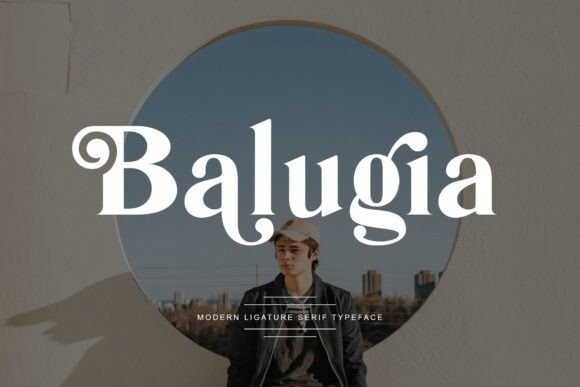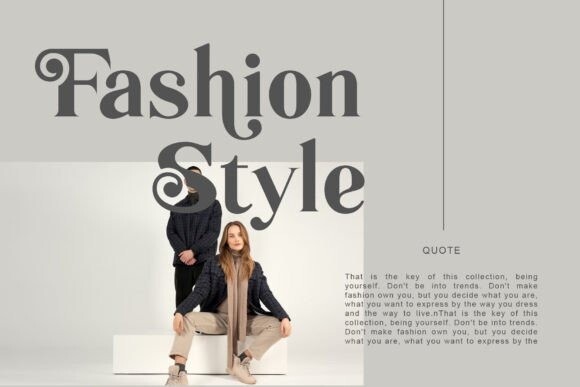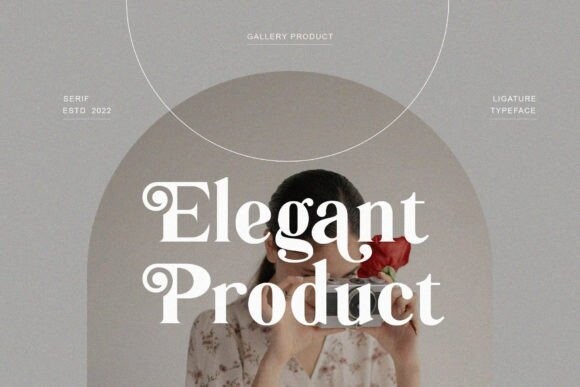
Balugia Font
Balugia is a sophisticated, charming serif font with a fashionable touch. Specially designed for luxury, elegant, feminine projects, this font is perfectly suitable for creating modern, chic designs.